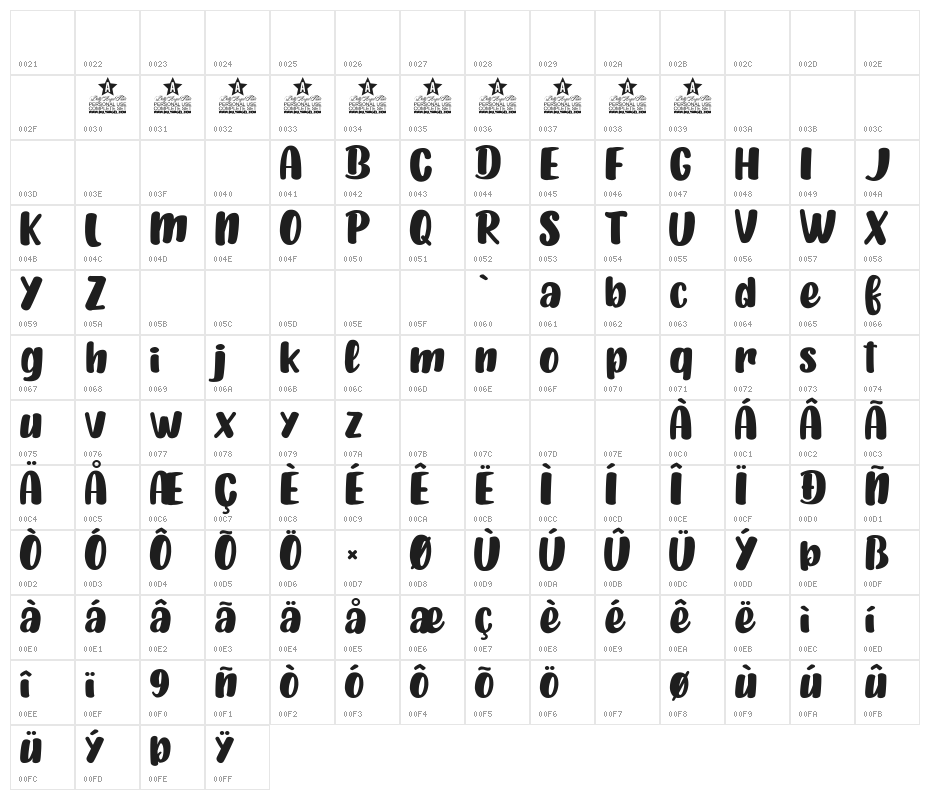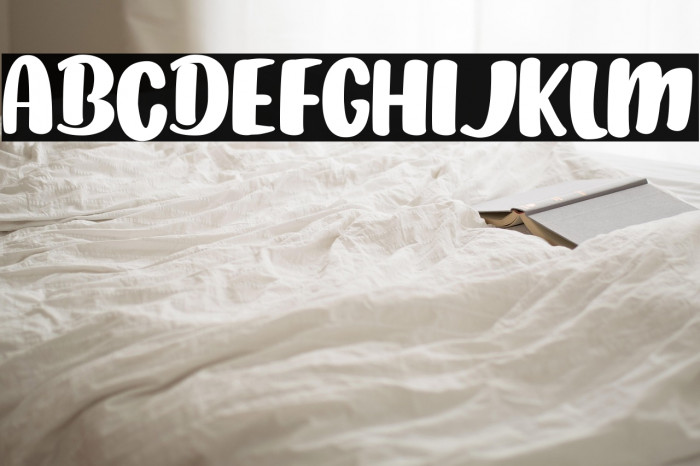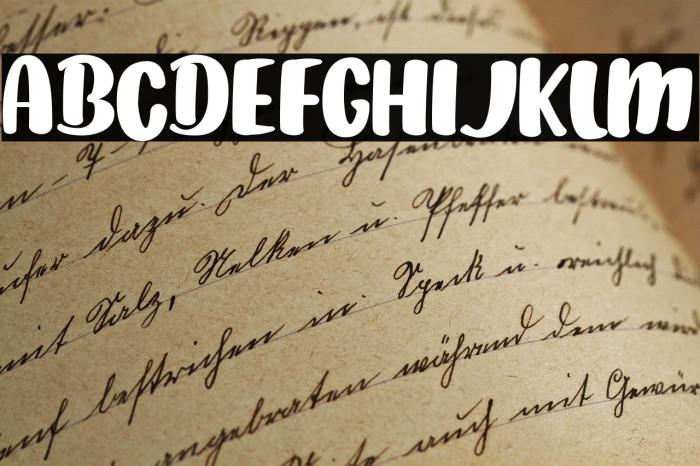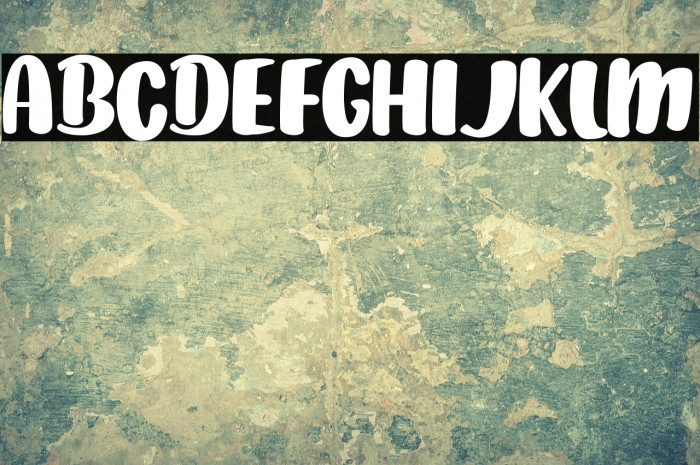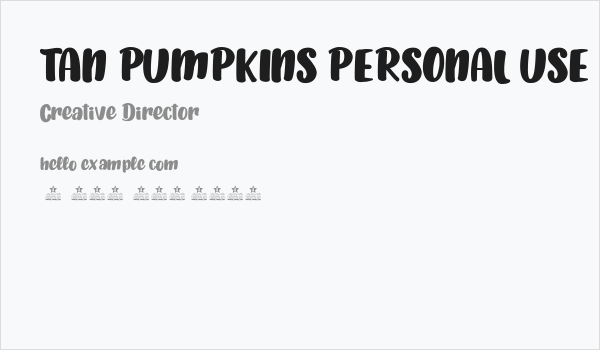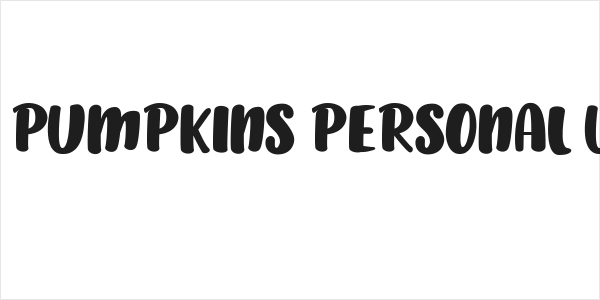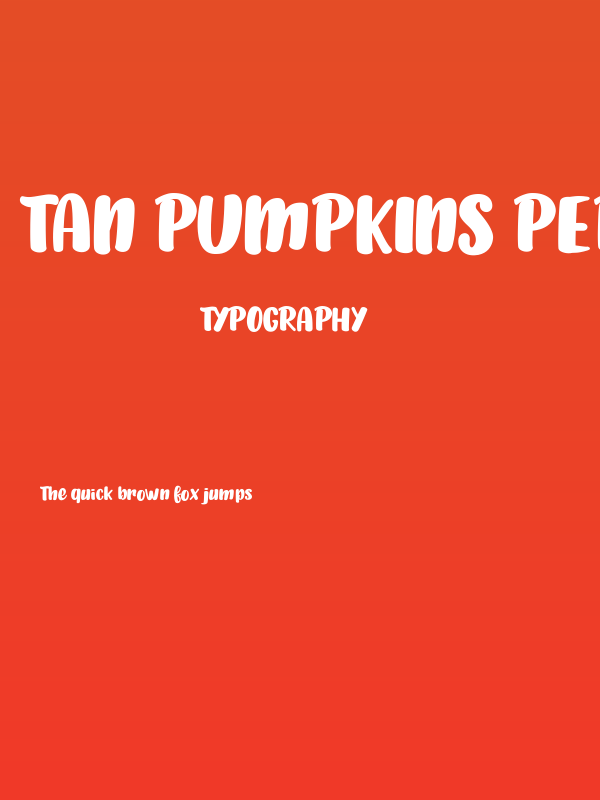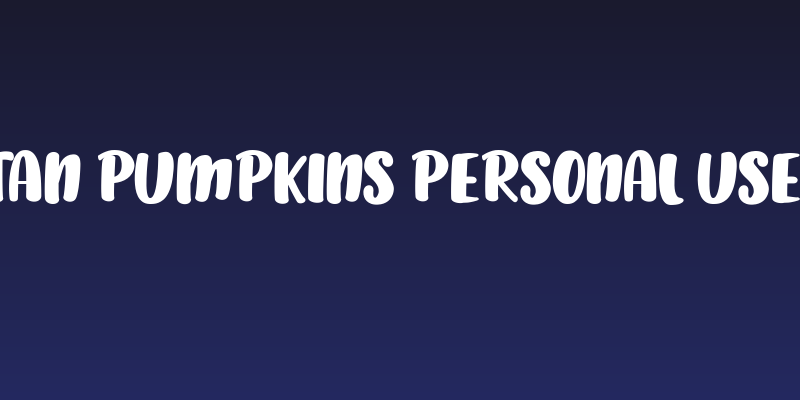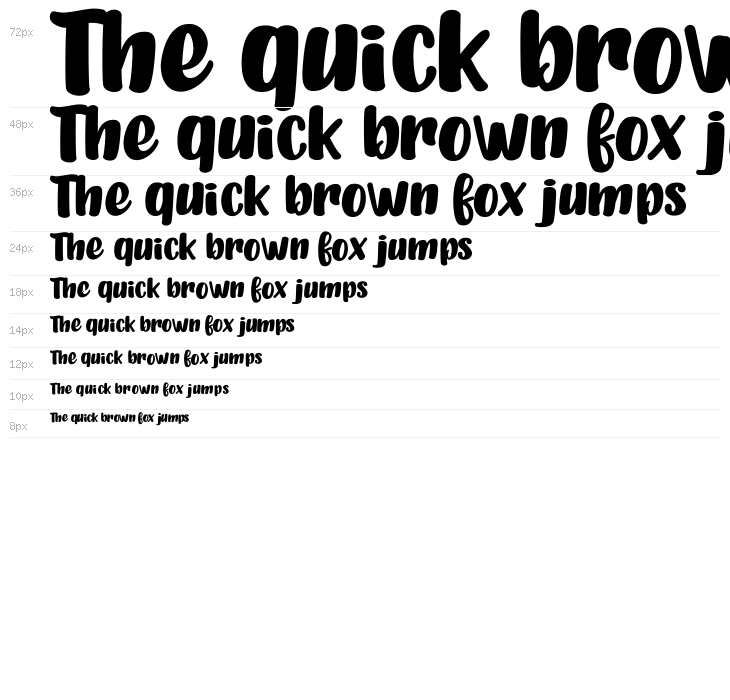
TAN PUMPKINS PERSONAL USE Font
TAN PUMPKINS PERSONAL USE Description
This font features a bold and playful style with thick, rounded strokes that give it a friendly and approachable appearance. The letters are slightly condensed, adding to the compact and cohesive look of the text. The uppercase and lowercase characters maintain a consistent design, with smooth curves and a slight slant that adds a dynamic feel. The font includes a full set of uppercase and lowercase letters, numbers, and a selection of special characters, making it versatile for various design needs. Its boldness and unique character shapes make it stand out, ideal for eye-catching designs.
Overall StylePlayful, Modern
Proposed ProjectsGreat for children's book covers, playful branding, event posters, and social media graphics.